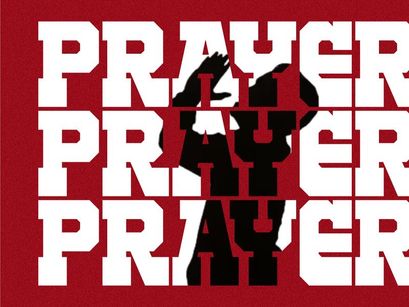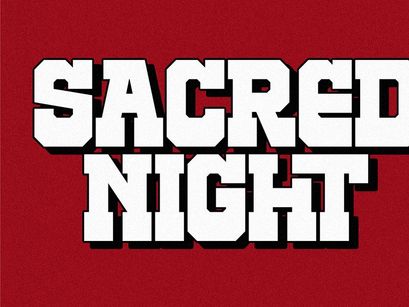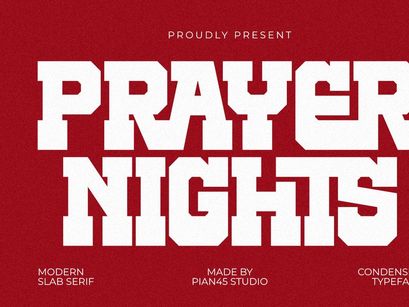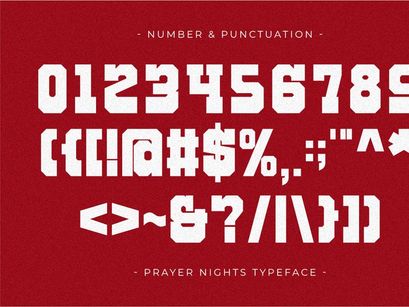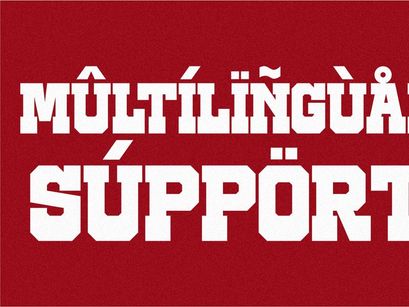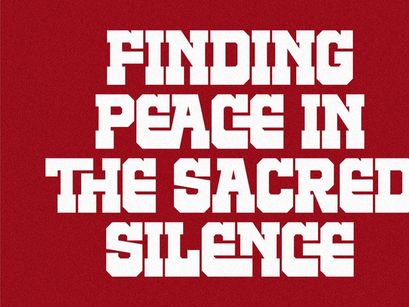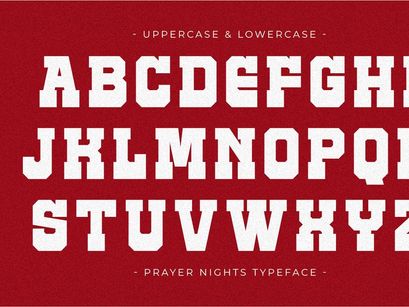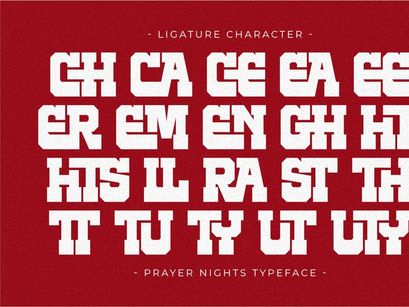
Prayer Nights is a commanding and authoritative Modern Slab Serif font featuring a powerful condensed structure. This bold typeface is meticulously designed for high-impact visual storytelling, making it the perfect choice for church branding, religious event posters, book covers, and strong editorial headlines. Its heavy, blocky serifs and clean, modern lines deliver a professional and spiritual presence, ensuring your designs stand out in digital media, apparel, and large-scale signage projects demanding a strong, vertical aesthetic.